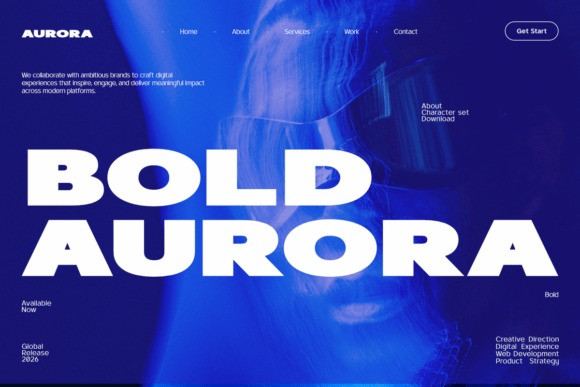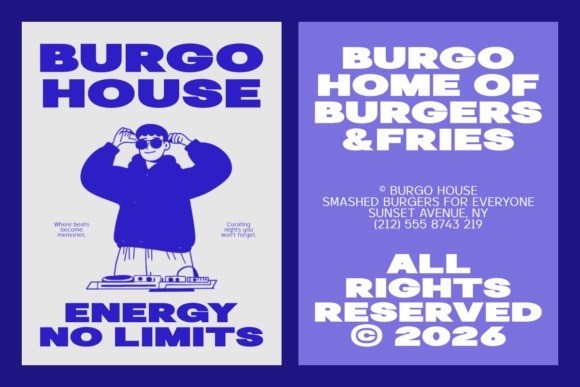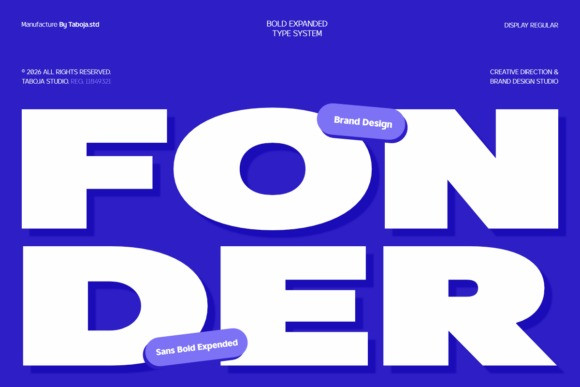
TBJ Fonder Font
TBJ Fonder Font is a bold expanded display typeface built for strong visual impact and modern brand communication.
Designed with wide proportions, confident geometry, and clean construction, Fonder delivers a powerful presence across contemporary design systems.
Created for high-visibility use, Fonder performs exceptionally in headlines, brand identities, posters, packaging, and digital campaigns. Its expanded letterforms and balanced spacing create a loud, confident voice while maintaining clarity and readability at large scales.
With a modern and energetic character, Fonder fits perfectly within creative direction, brand design, and bold typographic layouts where attention and personality are essential.
Fonder includes a complete uppercase set, numerals, and essential punctuation—making it a reliable display solution for studios, agencies, and modern brands seeking a strong typographic signature.